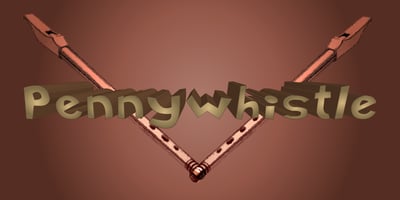
Pennywhistle Font Family was designed by Rob Barba and published by Megami Studios. Pennywhistle contains 3 styles and family package options. Out from a turn-of-the-century cartoon, Pennywhistle evokes the silly symphonies and merry melodies of an earlier age, while playing footloose and fancy free for a modern age.